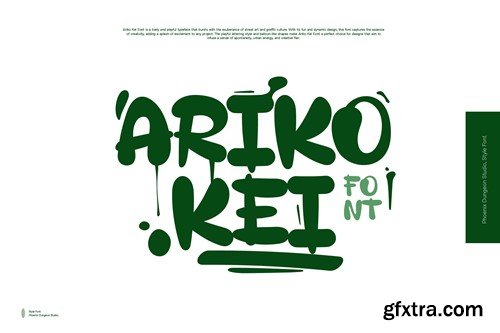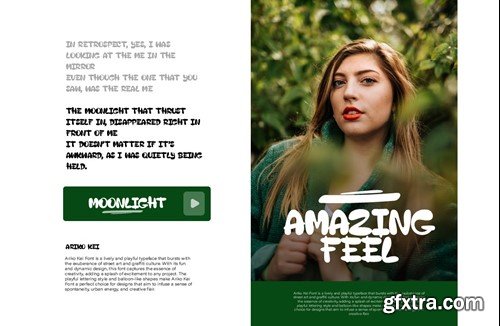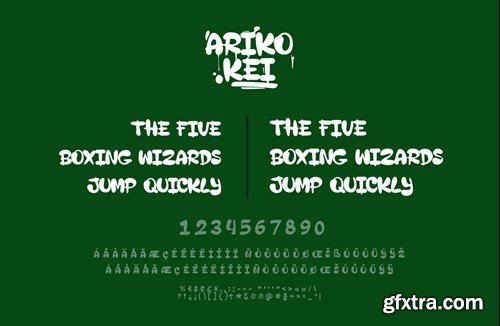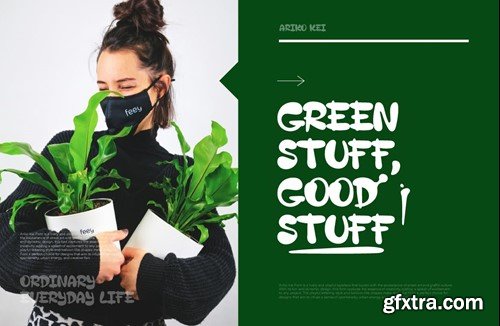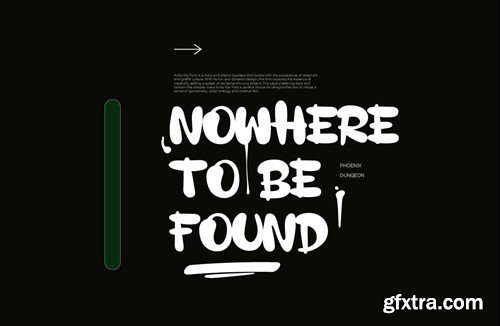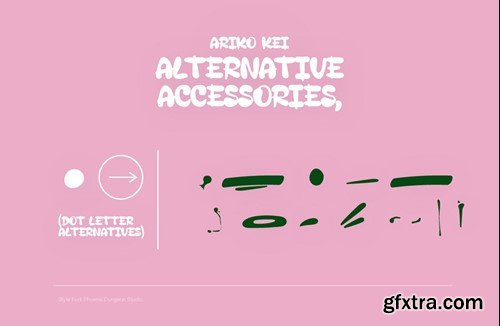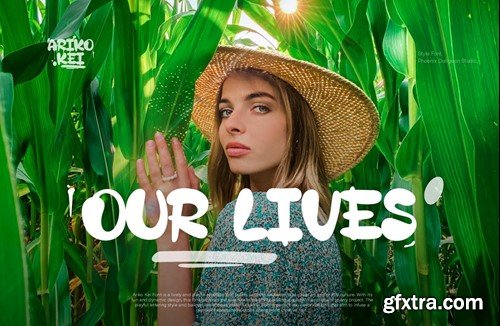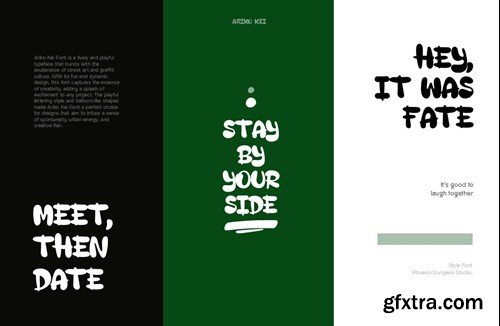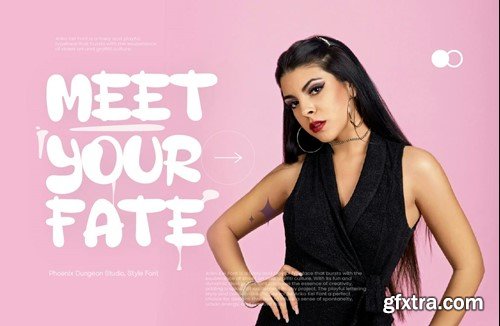
Ariko Kei Font PRA35E6
Ariko Kei Font
Ariko Kei Font is a lively and playful typeface that bursts with the exuberance of street art and graffiti culture. With its fun and dynamic design, this font captures the essence of creativity, adding a splash of excitement to any project. The playful lettering style and balloon-like shapes make Ariko Kei Font a perfect choice for designs that aim to infuse a sense of spontaneity, urban energy, and creative flair. What’s in the package : Thank you